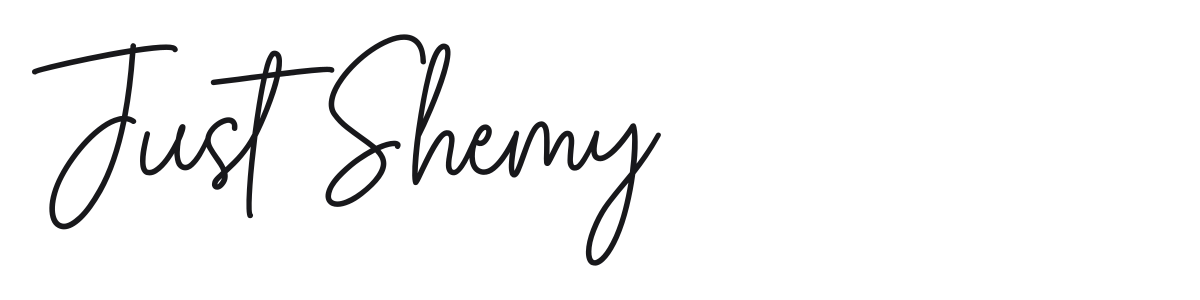
Just Shemy
Just Shemy is a casual connected script with a flowing, hand-penned warmth and near-monoline strokes. The letters move with a relaxed, looping rhythm that feels personal without being overly formal. It suits branding, packaging, and any context where approachable handwritten energy is the goal.